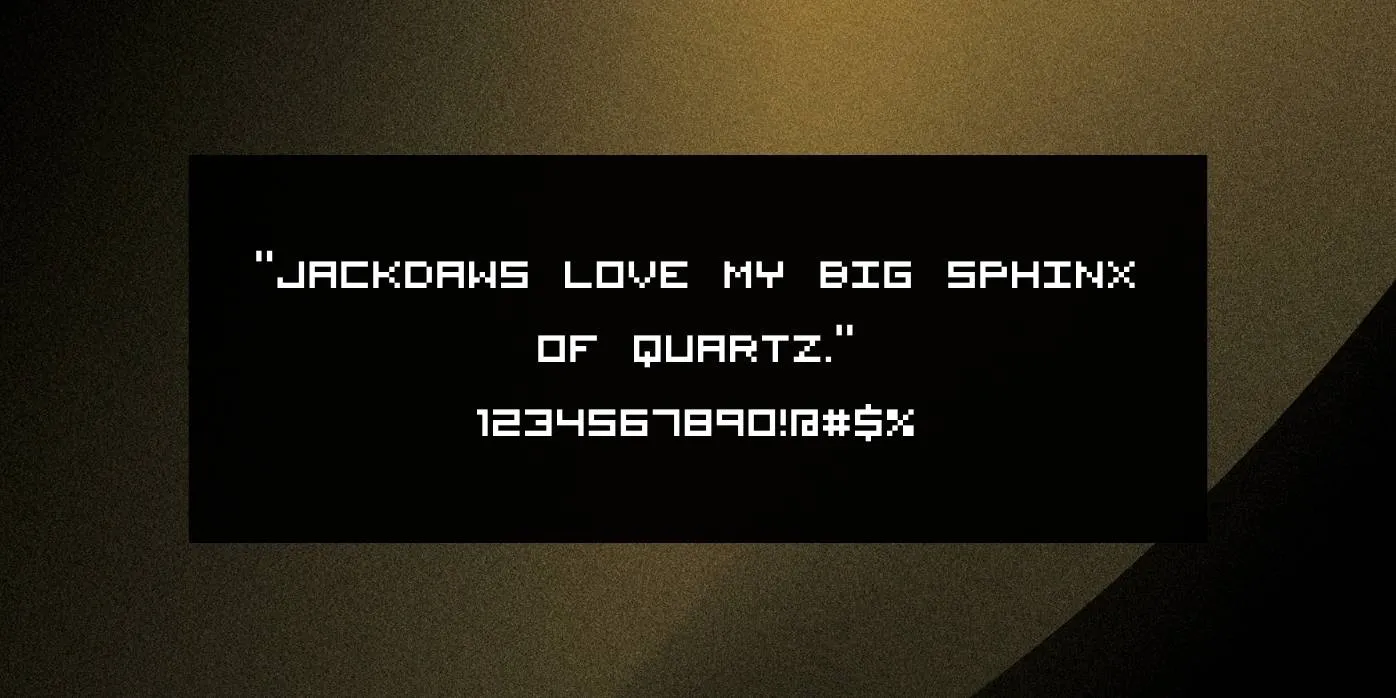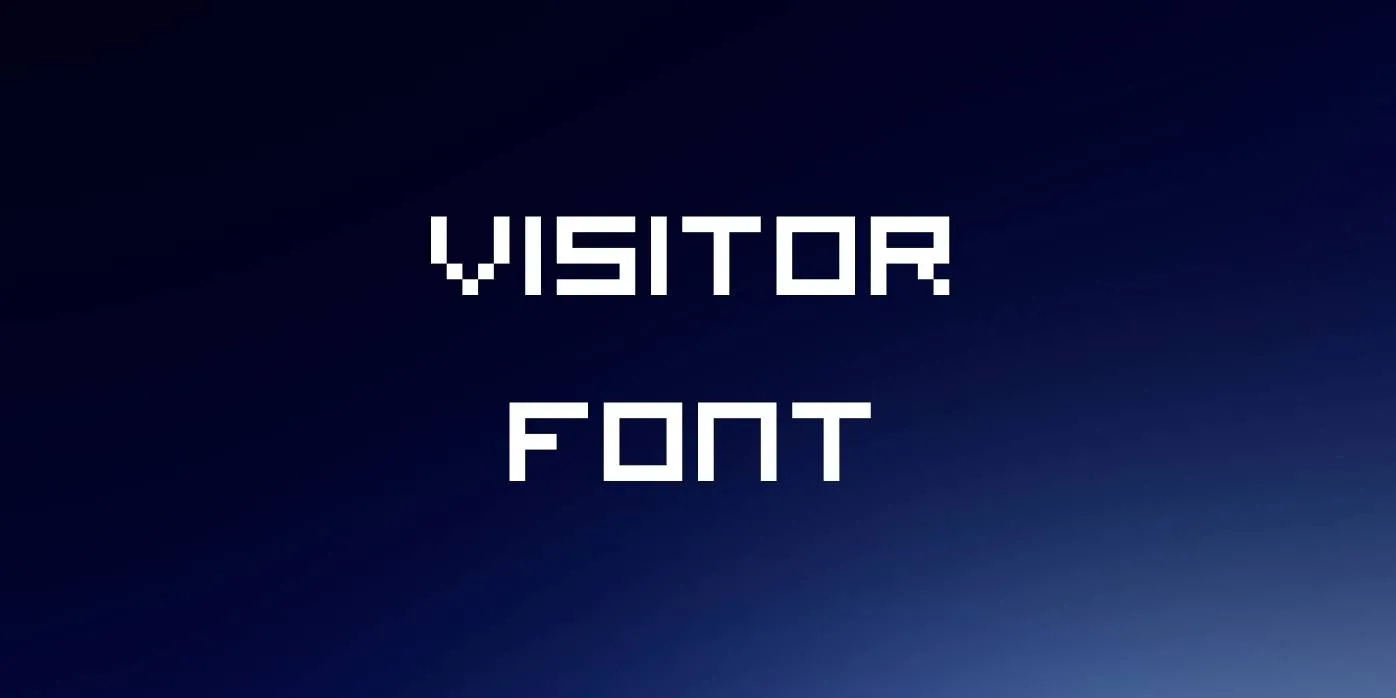
Visitor Font
Visitor Font is a retro typeface designed by Paul Renner. The font was released in 1927 and is still used today. The Font has been used in many games, including Minecraft. The Font is also the official typeface of the United States Air Force.
This typeface has a unique history in that it was designed to be used for both print and digital media. The Font was one of the first typefaces to be designed specifically for use on computers. The typeface was also designed to be easily readable on screens. The Font is a versatile typeface that can be used for both body copy and headlines.
The Font is available in both regular and bold weights. Moreover, you can also try fishhook bold font for your logos and other typography designs as well. The Font is also available in italic, small caps, and condensed versions.